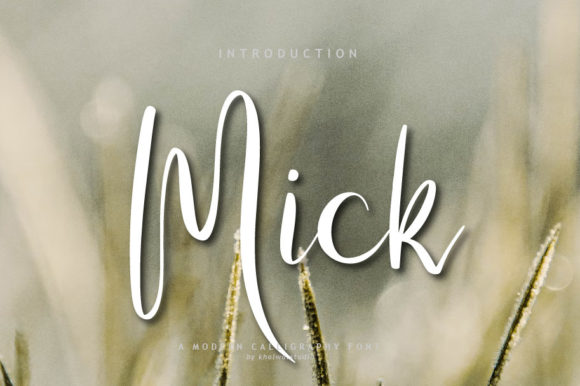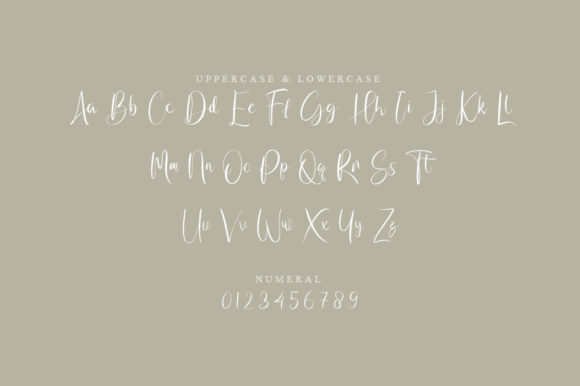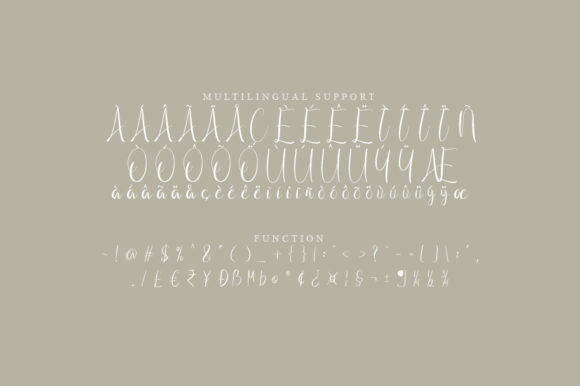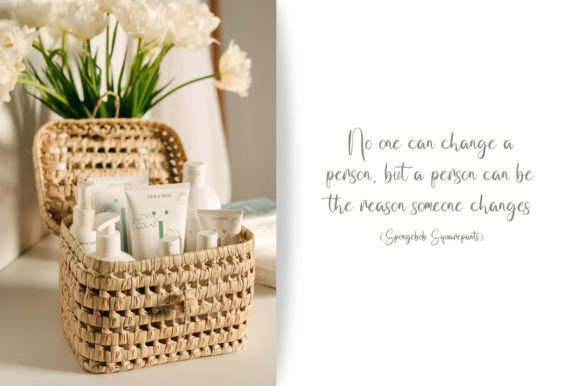
About Mick Script Font
Mick Script is a captivating and timeless handwritten font that exudes elegance and charm. With its graceful and fluid strokes, this font is an ideal choice for a variety of design projects, including logos, branding, and quotes.
When used in logos, Mick Script adds a distinctive and personalized touch to your brand identity. Its unique and beautiful letterforms create a memorable and eye-catching logo that stands out from the crowd. Whether you’re a boutique business or a creative agency, Mick Script adds a touch of sophistication and authenticity to your brand’s visual identity.
For branding projects, Mick Script brings a sense of elegance and uniqueness to your materials. From business cards to product packaging, the font’s timeless appeal elevates your brand’s image and helps create a lasting impression on your audience. Its versatile nature allows it to adapt to various styles, making it suitable for a wide range of industries.
Quotes take on a whole new dimension with Mick Script. The font’s delicate and artistic flair adds depth and emotion to your words, making them resonate with readers on a deeper level. Whether you’re designing inspirational wall art, social media graphics, or quote prints, Mick Script’s timeless charm enhances the impact of your messages.
Mick Script’s versatility extends to various design contexts. Its unique and beautiful touch makes it a favorite choice for wedding invitations, greeting cards, and personalized stationery. The font’s ability to evoke a sense of elegance and romance adds a special touch to important events and occasions.
In summary, Mick Script is a lovely and timeless handwritten font that adds elegance, uniqueness, and beauty to your designs. Its versatile nature makes it well-suited for creating eye-catching logos, elevating brand identities, and infusing quotes with emotion and depth. With Mick Script, every letter becomes a work of art, breathing life and sophistication into your design projects.